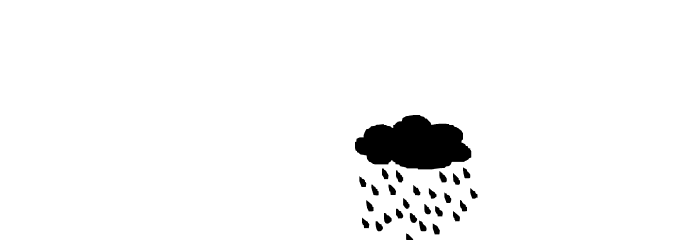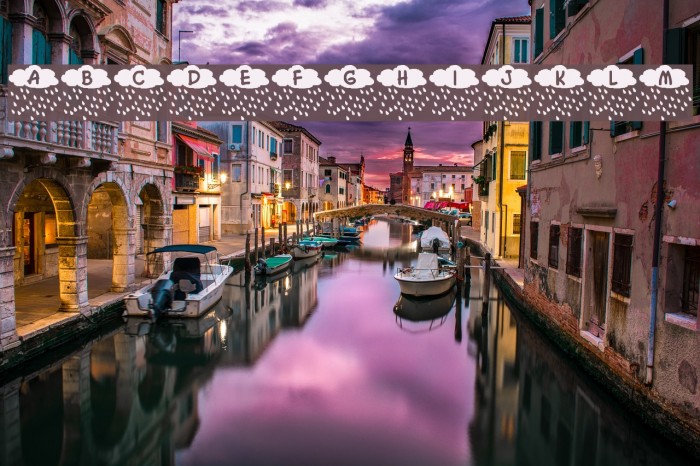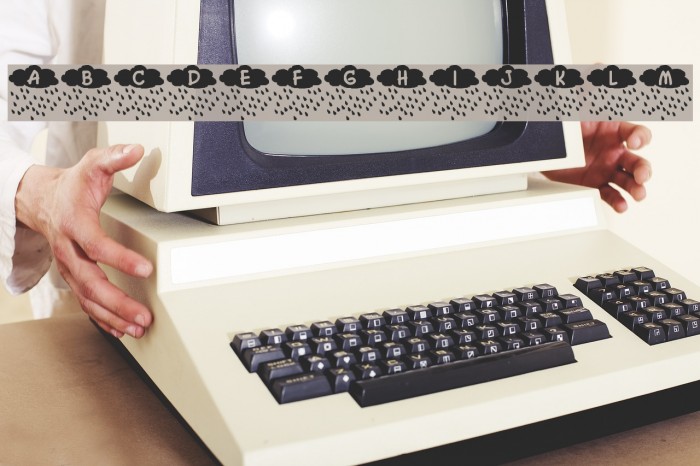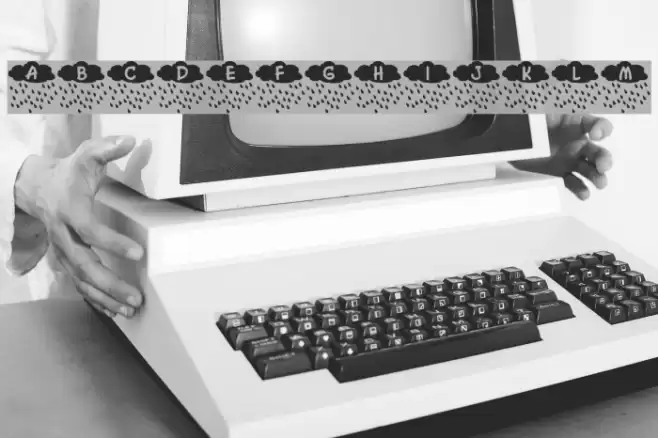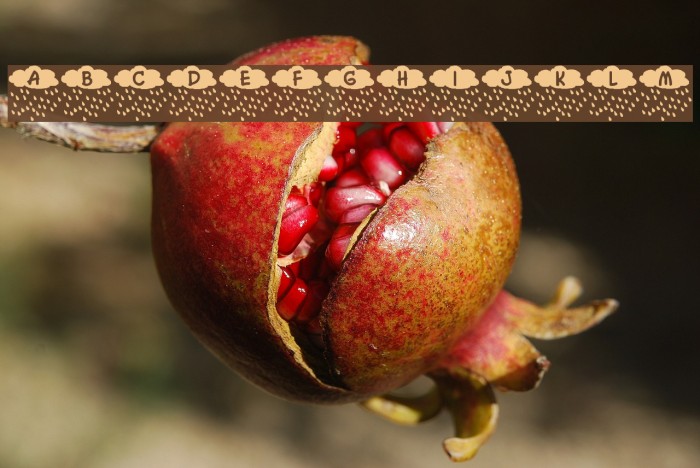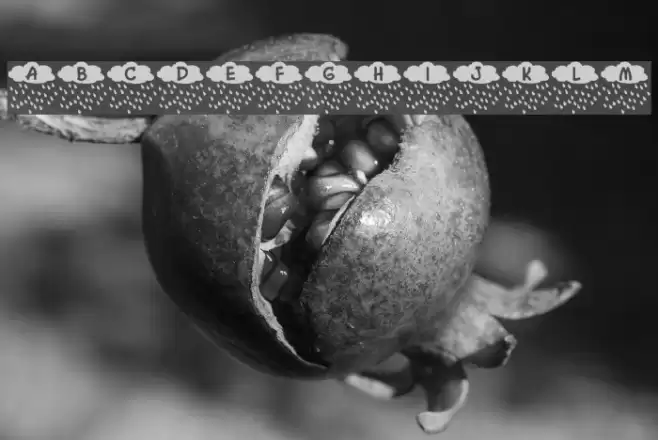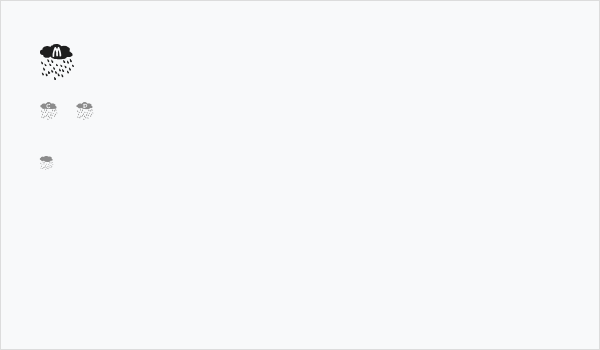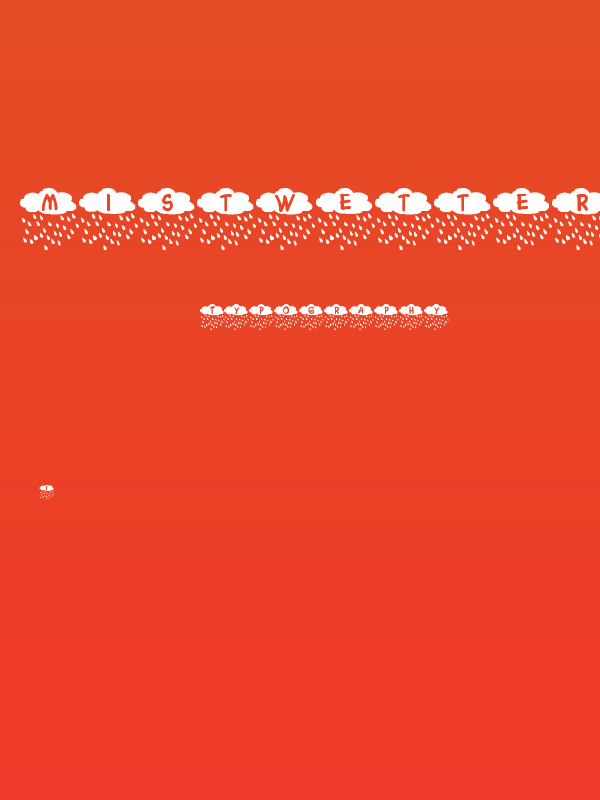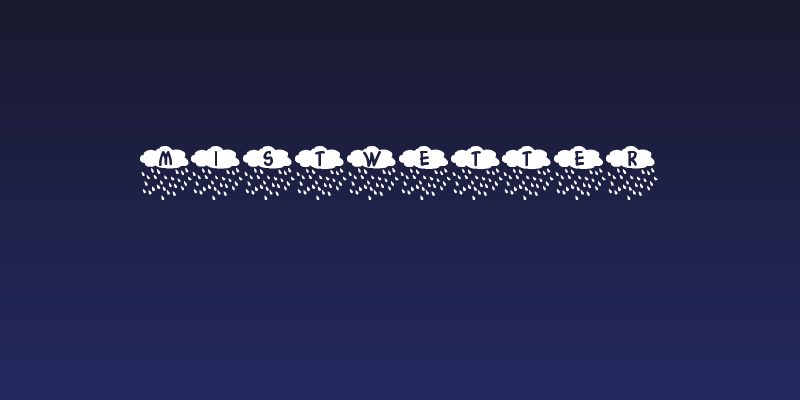
Mistwetter Font
Mistwetter Description
This playful and whimsical font features each letter encapsulated within a cloud shape, with raindrops falling beneath. The design evokes a sense of fun and creativity, making it ideal for projects that require a lighthearted and imaginative touch. The letters are bold and easily legible, despite the decorative elements surrounding them. The cloud motif adds a unique character to the font, making it stand out in any design. The overall style is both charming and distinctive, perfect for capturing attention.
| Proposed Projects | Ideal for children's books, weather-themed designs, playful posters, and creative branding. |